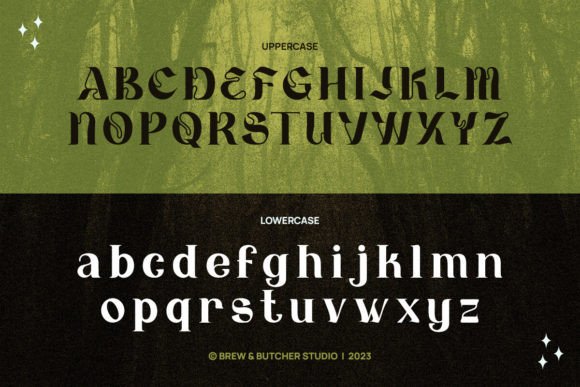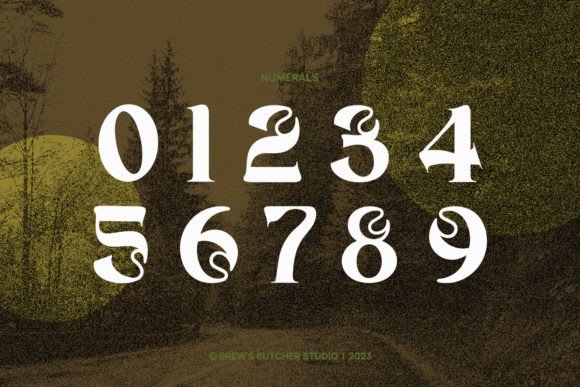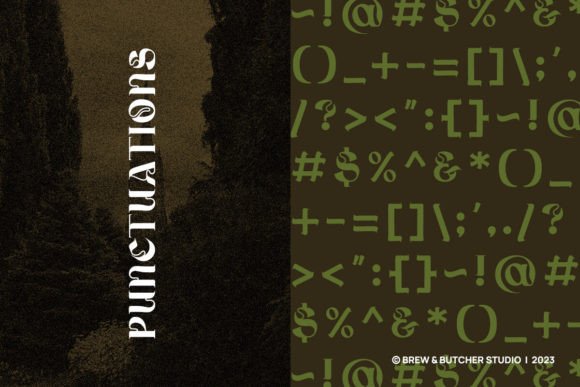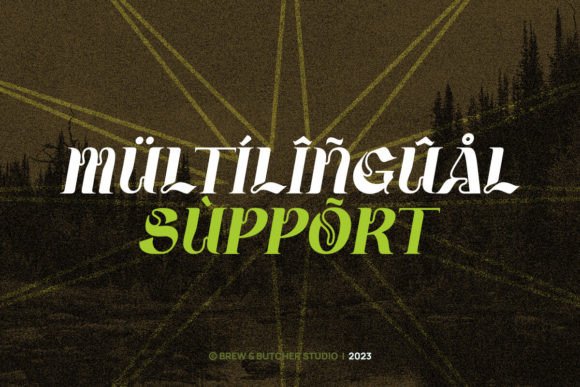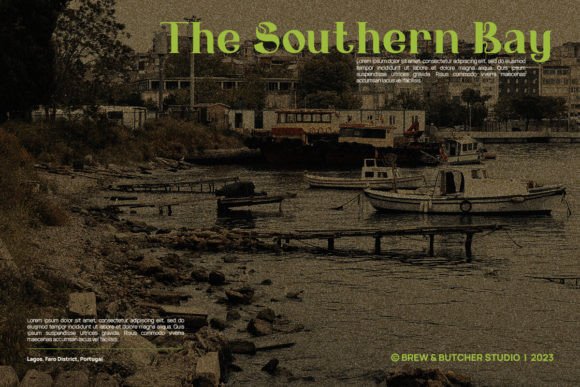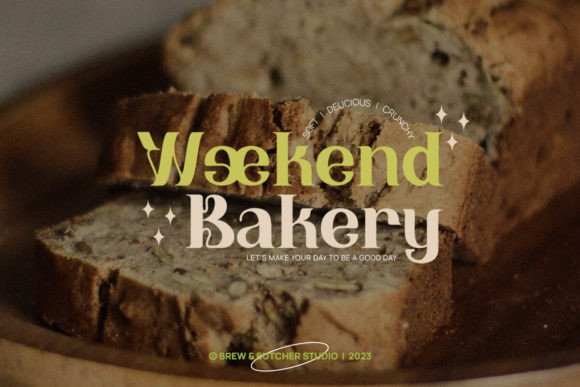
Introducing Goocy Goofy Font: A Unique Blend of Psychedelic and Gothic Styles
Are you tired of using the same old fonts for your design projects? Look no further than Goocy Goofy, a font that combines a unique character with a curved shape to create a truly one-of-a-kind look. In this article, we’ll dive into the concept and idea behind Goocy Goofy, its features, and how you can use it to elevate your designs.
The Concept and Idea Behind Goocy Goofy
Goocy Goofy is a font that embodies the psychedelic style, characterized by its identical curves and smooth lines. The concept of this font is to create a sense of continuity and flow, making it perfect for designs that require a bold and eye-catching statement. The curved shape of Goocy Goofy gives it a distinctive look that’s both spooky and gothic, yet still manages to convey a sense of boldness and confidence.
Key Features of Goocy Goofy
So, what makes Goocy Goofy stand out from other fonts? Here are some of its key features:
- Unique Character: Goocy Goofy has a unique character that’s a blend of psychedelic and gothic styles.
- Curved Shape: The font features smooth curves that give it a distinctive look.
- Smooth Lines: Goocy Goofy has smooth lines that create a sense of continuity and flow.
- Slightly Spooky and Gothic: The font has a slightly spooky and gothic impression, making it perfect for designs that require a bold statement.
- Bold Impression: Despite its spooky and gothic undertones, Goocy Goofy still manages to convey a sense of boldness and confidence.
Best Use Cases for Goocy Goofy
So, how can you use Goocy Goofy to elevate your designs? Here are some of the best use cases for this font:
- Headers and Headlines: Goocy Goofy is perfect for headers and headlines, where its bold and eye-catching style can really shine.
- Posters and Flyers: The font’s unique character and curved shape make it ideal for posters and flyers that require a bold statement.
- Banners and Landing Pages: Goocy Goofy can add a touch of psychedelic style to your banners and landing pages, making them more engaging and attention-grabbing.
- Portfolios and Nameplates: The font’s smooth curves and bold impression make it perfect for portfolios and nameplates that require a professional yet eye-catching look.
- Album Covers: Goocy Goofy’s unique character and gothic undertones make it ideal for album covers that require a bold and edgy look.
Why Designers and Crafters Love Goocy Goofy
So, why do designers and crafters love Goocy Goofy? Here are some reasons:
- Versatility: Goocy Goofy can be used for a wide range of design projects, from posters and flyers to banners and landing pages.
- Unique Style: The font’s unique character and curved shape make it stand out from other fonts, giving designers and crafters a fresh and distinctive look.
- Easy to Read: Despite its bold and eye-catching style, Goocy Goofy is still easy to read, making it perfect for designs that require a clear and concise message.
| Font Name | Goocy Goofy Font |
| Author | brewandbutcher |
In conclusion, Goocy Goofy is a font that’s sure to elevate your designs with its unique character, curved shape, and bold impression. Whether you’re a designer, crafter, or simply someone who loves typography, Goocy Goofy is a great addition to your font library. With its versatility, unique style, and ease of readability, Goocy Goofy is perfect for a wide range of design projects. So why not give it a try and see how it can take your designs to the next level?